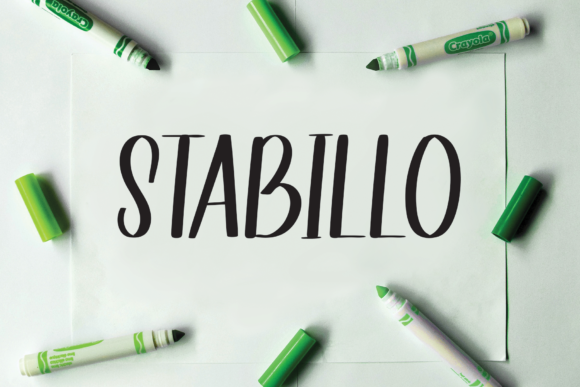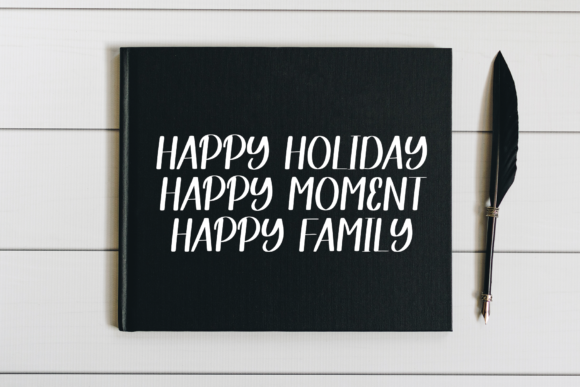
Whitepink Font
db-ku.com - Script & Handwritten -- This is a sweet and bold handwritten font. It features beautiful curves in each letter. This font is PUA coded, which means you can access all the glyphs and sweeps easily!